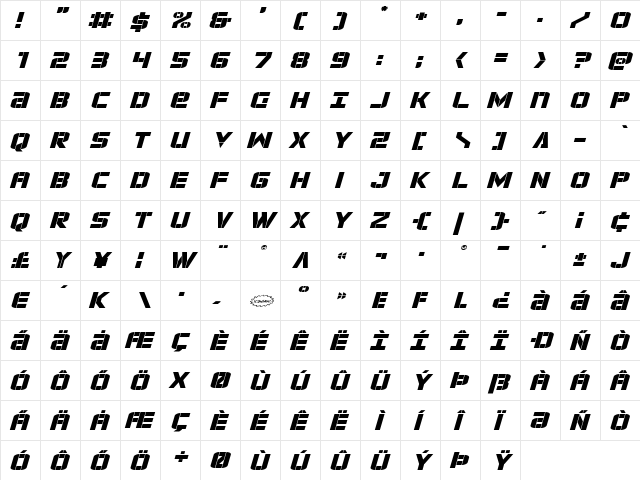
Force Commander Expanded Italic Expanded Italic
Design Context for Force Commander Expanded Italic Typeface
Force Commander Expanded Italic brings high-energy athletic personality to the page — its confident, muscular forms are built for impact. Its italic angle brings a sense of urgency and motion to the letterforms.
Built for sports team identities, athletic apparel, event posters, and high-energy promotional material.
Pro Tip: Force Commander Expanded Italic thrives on contrast — try it large, bold, and tight against a clean background for maximum visual impact.